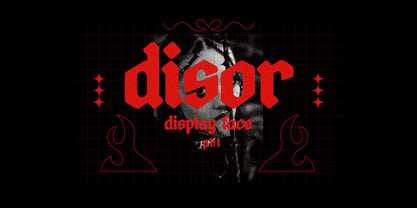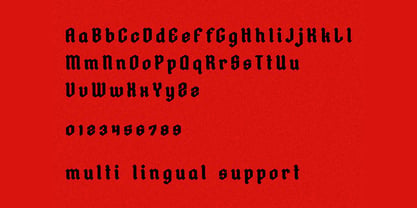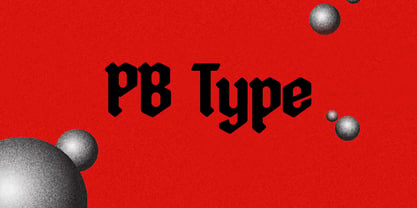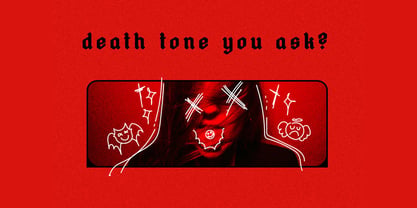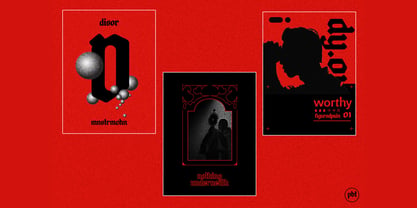
Disor
by PB Type
The Disor Font Family was designed by Ilham Prambudiharjo Raharjo and published by PB Type. Disor contains 1 styles. More about this family
Unleash the Wicked Charm of "Disor Blackletter" – A Typeface with a Naughty Dark Edge
Introducing Disor Blackletter, a bold and rebellious take on the classic gothic script. With its sharp, angular lines, twisted flourishes, and a touch of ink-spilled chaos, Disor breaks free from tradition to embrace a darker, more mischievous side. Perfect for designs that demand attention, this typeface combines the elegance of medieval blackletter with a raw, untamed energy that feels both forbidden and irresistible. Whether you're crafting ominous branding, rebellious logos, or edgy posters, Disor Blackletter adds an unmistakable sense of drama and mystery. It’s time to push boundaries—let your designs speak with a wicked, rebellious tone.
Designers: Ilham Prambudiharjo Raharjo
Foundry: PB Type